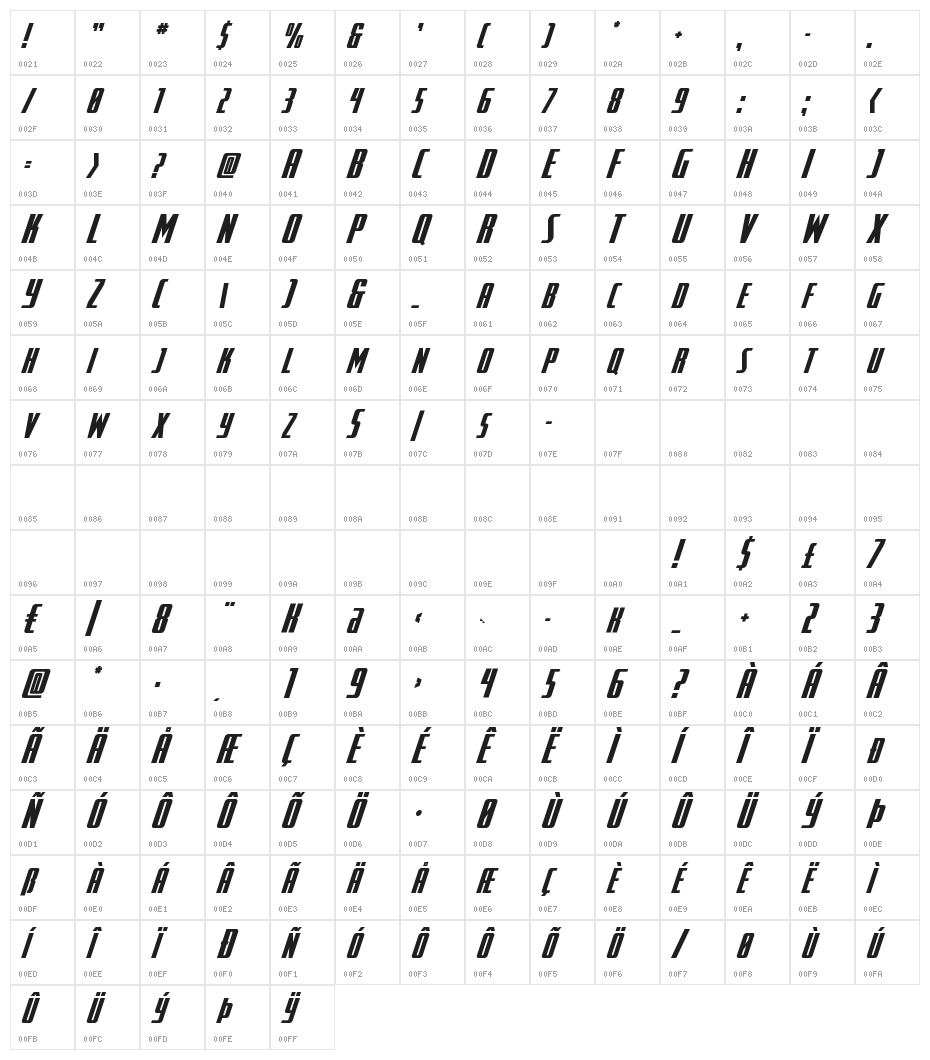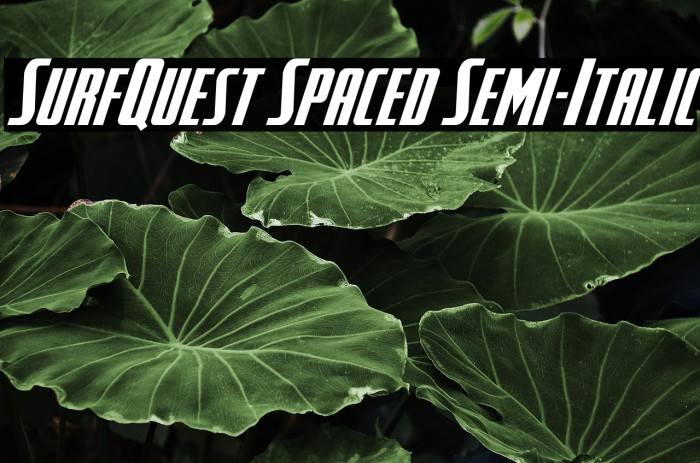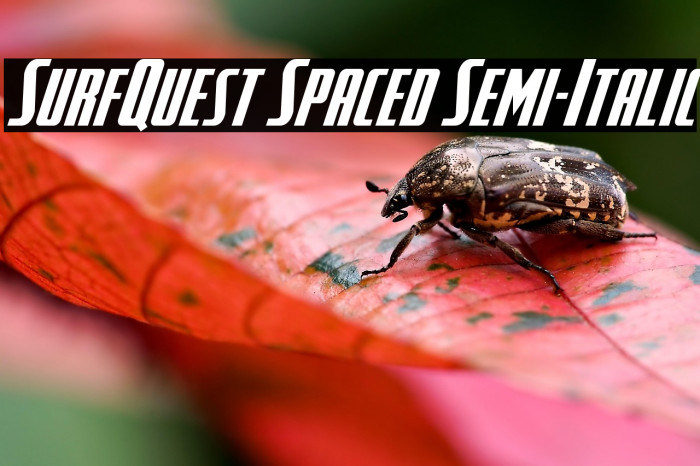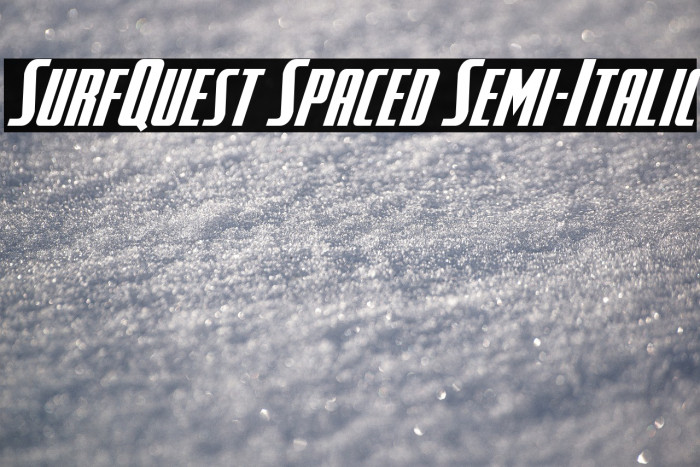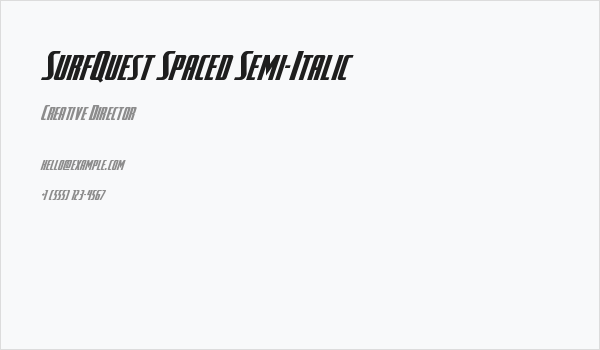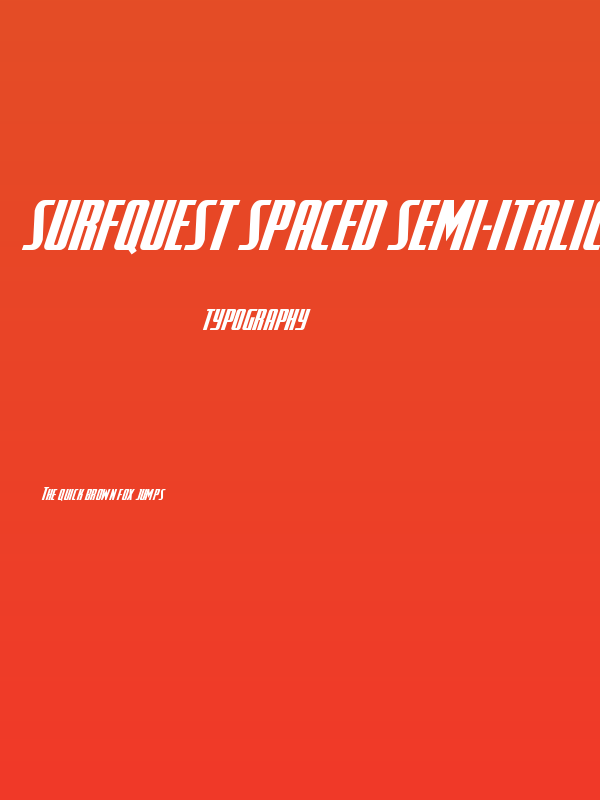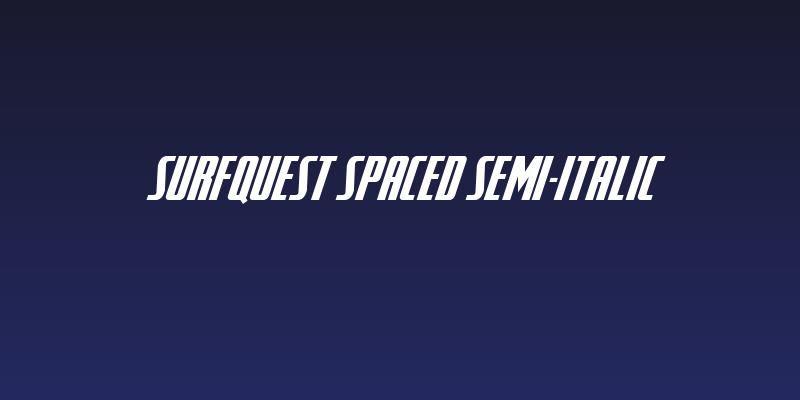
SurfQuest Spaced Semi-Italic Font
SurfQuest Spaced Semi-Italic Description
This font exhibits a bold and dynamic style with a distinct italic slant, giving it a sense of motion and energy. The characters are elongated with a condensed width, enhancing the sleek and modern appearance. The uppercase and lowercase letters maintain a consistent design, with sharp angles and clean lines that contribute to its contemporary look. The numerals and special characters follow the same stylistic cues, ensuring uniformity across all elements. The font's high contrast in stroke thickness adds to its striking visual impact, making it ideal for attention-grabbing designs.